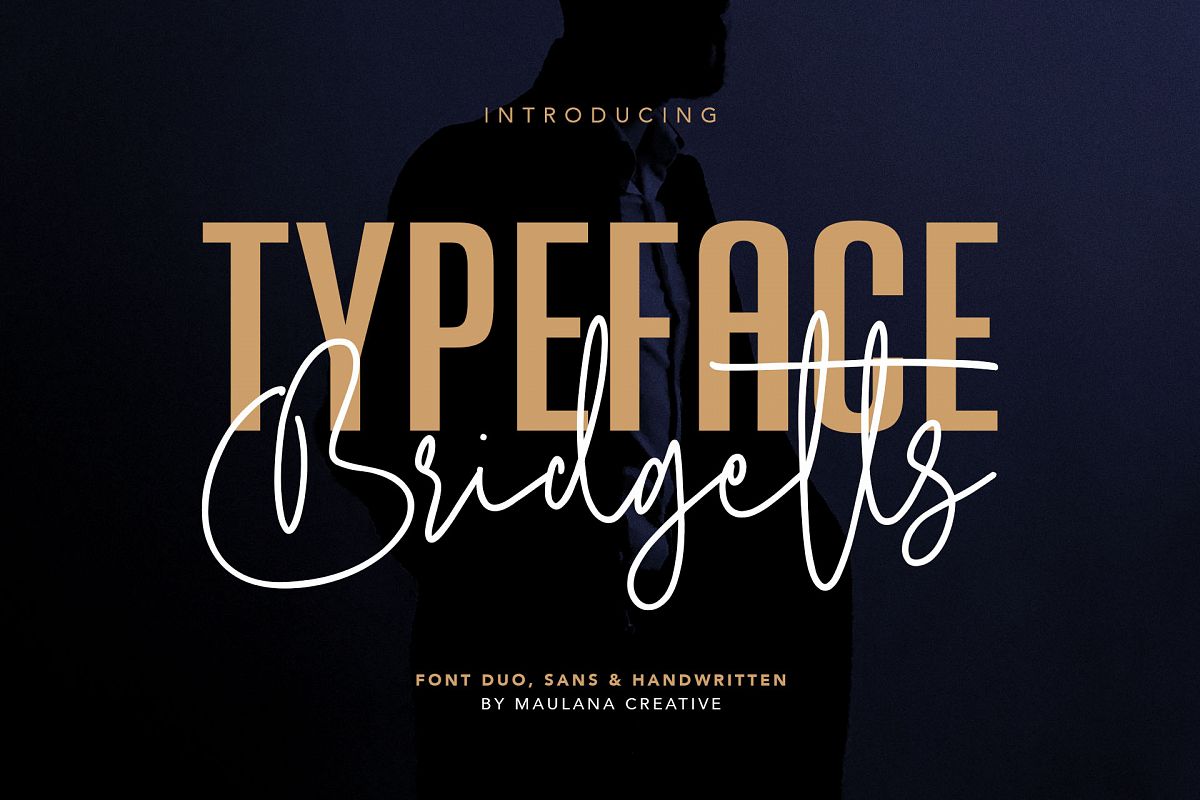
Give your designs an authentic brush handcrafted feel. "Bridgetts" is perfectly suited to signature, stationery, logo, typography quotes, magazine or book cover, website header, flyer, clothing, branding, packaging design and more.